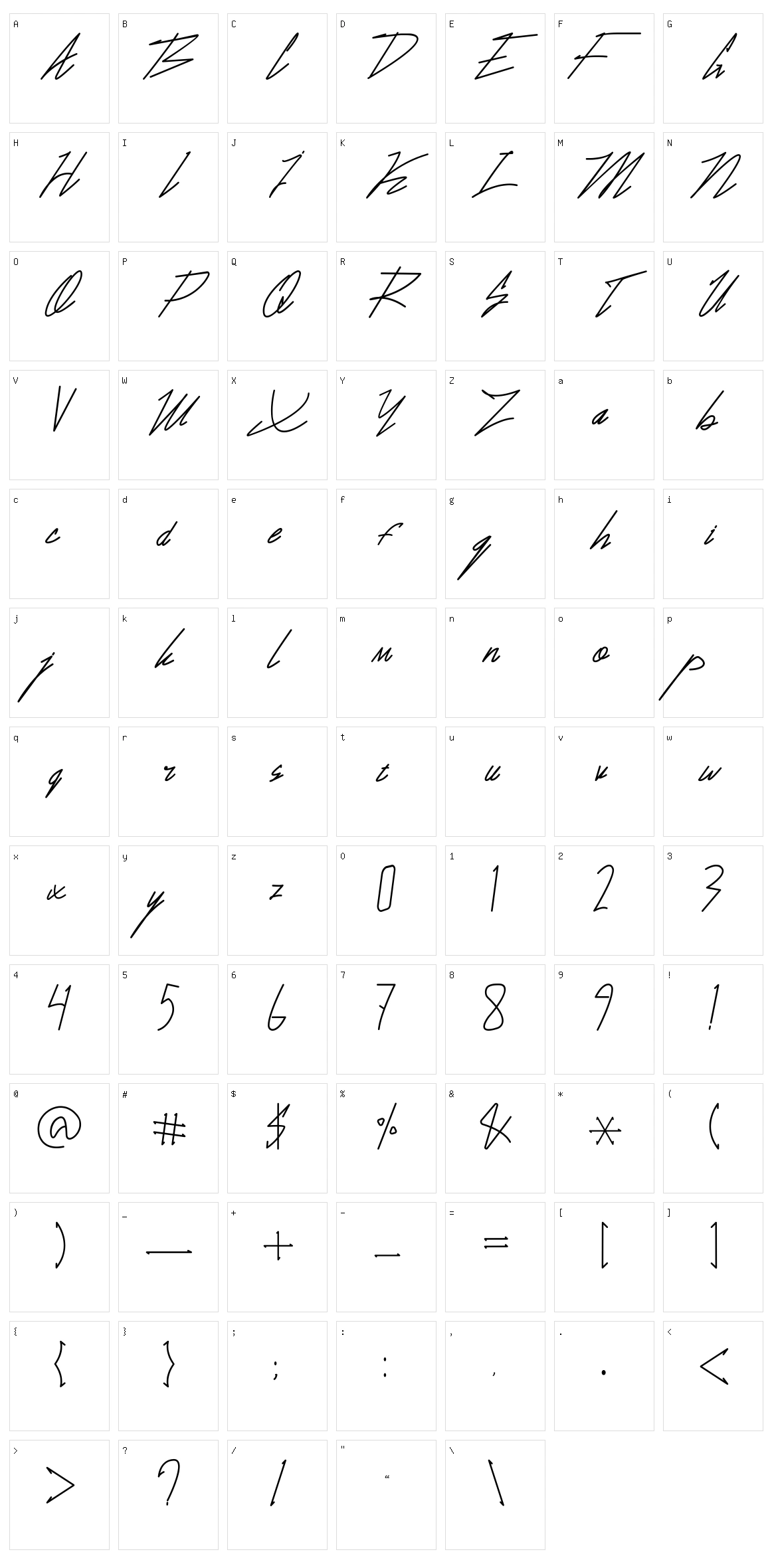
The free font Rousty Line is carefully designed by Sifak Muf, showcasing a thoughtful balance of creativity and usability and falls under the Script font style. When you download the ZIP file, it contains only 59.86 KB of font files, making it lightweight and quick to download. Please review the license details below to understand permitted usage and distribution rights. If license information is not available, we recommend using this font for personal projects only or contacting the author directly for commercial usage permissions.